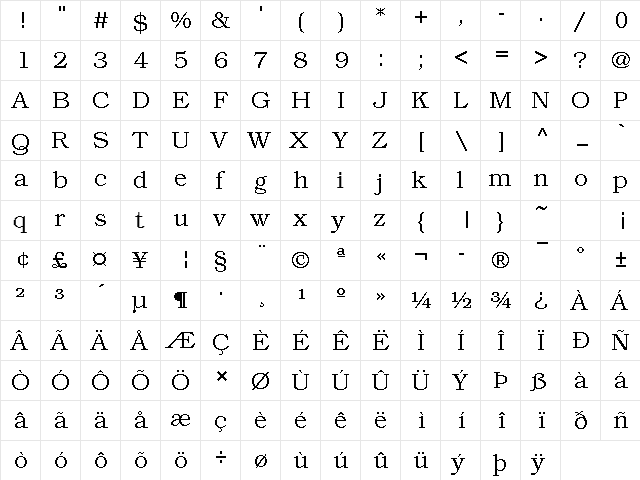
DTCRoughM12 Regular Font Preview
DTCRoughM12 Regular
DTCRoughM12 Regular Font Details
Design Context for DTCRoughM12 Typeface
DTCRoughM12 embraces imperfection — its rough, textured character adds raw authenticity to designs that want to feel lived-in and unconventional.
Suited to punk-influenced zines, underground music branding, streetwear, and raw, anti-corporate design.
Pro Tip: Pair DTCRoughM12 with intentionally raw or lo-fi design elements. Fighting against it with overly polished surroundings will undermine its personality.